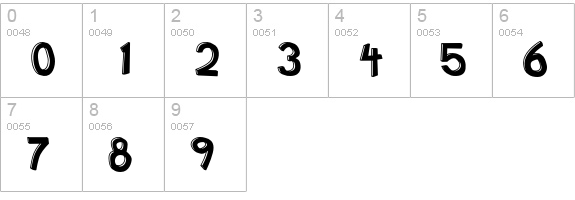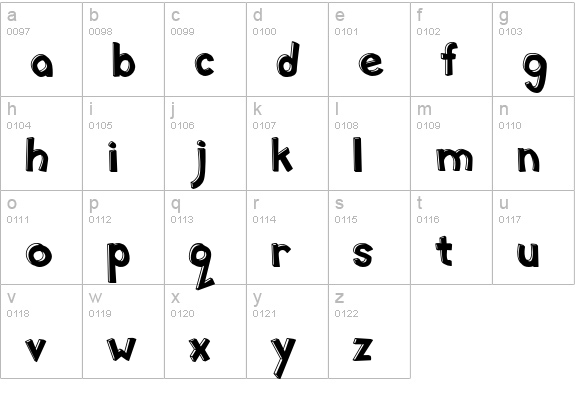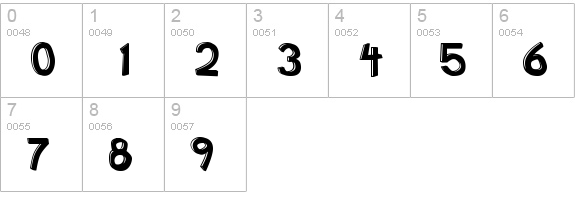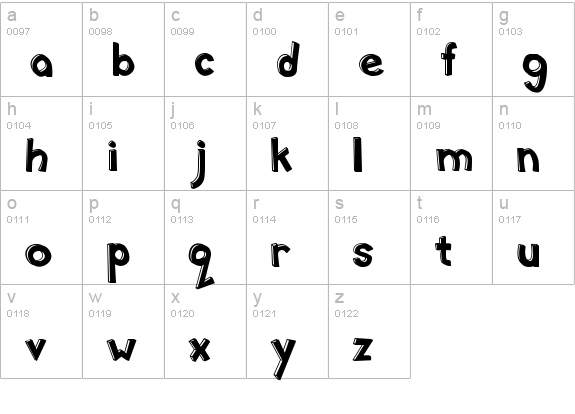
Mitten-Right Font Details
Introducing Mitten-Right font, a versatile and elegant typeface perfect for adding a touch of sophistication to your designs. This modern yet classic font features clean lines and a unique style that will make your projects stand out. With its sleek and professional look, Mitten-Right is suitable for a wide range of uses, from branding to editorial design. The best part? Mitten-Right font is completely free to download at FontsMarket.com! Take advantage of this fantastic offer and enhance your creations with this beautiful typeface. Whether you're working on a logo, website, or print materials, Mitten-Right is sure to elevate your design to the next level. Download it today and start creating stunning visuals with ease.